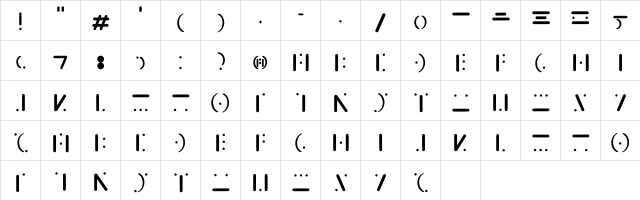
Galactic Media Regular
Design Context for Galactic Media Typeface
Galactic Media is a composed and adaptable typeface that performs quietly and consistently across a wide range of design contexts.